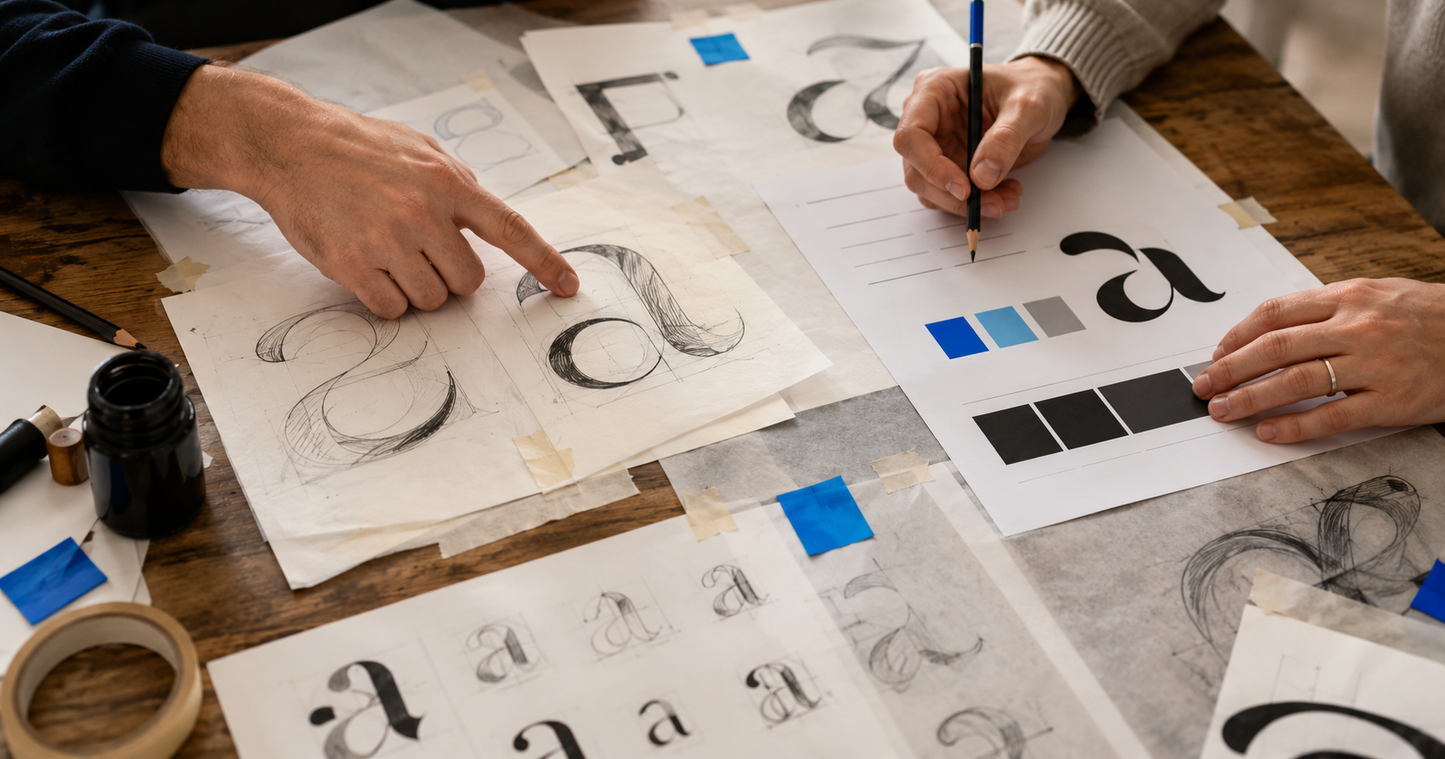
Most brands do not begin by needing a font. They begin by needing to look more like themselves. That could mean licensing a strong retail face, changing a few carefully chosen characters or commissioning an entirely original custom font. The clever choice is not automatically the most expensive one. It is the one that solves the problem without buying three floors of scaffolding to change a light bulb. More is not the same as better.
Three routes. Three different jobs.
| Option | Best for | Main advantage | Main limitation |
|---|---|---|---|
| Retail font | Fast launches and smaller budgets | Ready to licence and use | Other brands can use it too |
| Modified font | Brands that have found something close | Distinctive details without starting again | Modification requires the correct permission |
| Custom font | Brands needing an ownable visual voice | Designed around your personality and use | Requires more time and investment |
When a retail font is the right answer
Retail fonts are not a consolation prize. A good typeface, chosen intelligently and licensed correctly, can do excellent work.
Choose retail when the deadline is close, the budget is limited or the brand does not yet need exclusive typography. The advantage is obvious: the font already exists. You can test it, licence it and get moving.
The compromise is equally obvious. Someone else can buy it tomorrow. Possibly your competitor. Possibly the new coffee shop around the corner. Possibly an organic dog biscuit company with a surprisingly large branding budget.
When font modification makes sense
Sometimes a font is nearly right. The proportions work. The tone works. Then the logo needs a different G, the packaging needs a less polite R or the lowercase letters need more character.
Modification can include:
- Redrawing selected characters
- Adding alternate letters or ligatures
- Creating brand-specific symbols
- Extending language support
- Adjusting spacing and kerning
- Developing an additional weight
The original licence must allow the proposed work, or permission must be obtained from the rights holder. “We bought the font” does not automatically mean “we can alter the font”. Licensing has an irritating habit of remaining important even when everyone is excited about the new logo.
When to commission a custom font
A bespoke typeface makes sense when typography needs to become part of the identity rather than sit politely inside it.
It is particularly useful when:
- The brand needs a voice competitors cannot licence
- Typography appears across many campaigns or products
- A particular personality is missing from existing fonts
- The team needs consistent characters, symbols or numerals
- Long-term control matters more than a quick fix
The design begins with the brand, not a catalogue. That means the proportions, texture, rhythm and details can all be developed for a reason.
Do not commission a symphony when you need a doorbell
A large global foundry is designed for large global problems: many stakeholders, many languages, many platforms and a substantial rollout. That is valuable expertise. It is also not every brief.
An independent designer can build the scope around what you genuinely need. You speak to the person doing the work. Decisions do not need a guided tour through several departments. The project can stay personal, focused and properly ambitious without becoming needlessly enormous.
A simple decision
Ask yourself three questions:
- Is an existing font already right? Licence it.
- Is it right apart from a few important details? Explore modification.
- Does the brand need something nobody else can have? Commission something original.
The right answer may be smaller than you expected. Or more ambitious. The point is to choose deliberately.